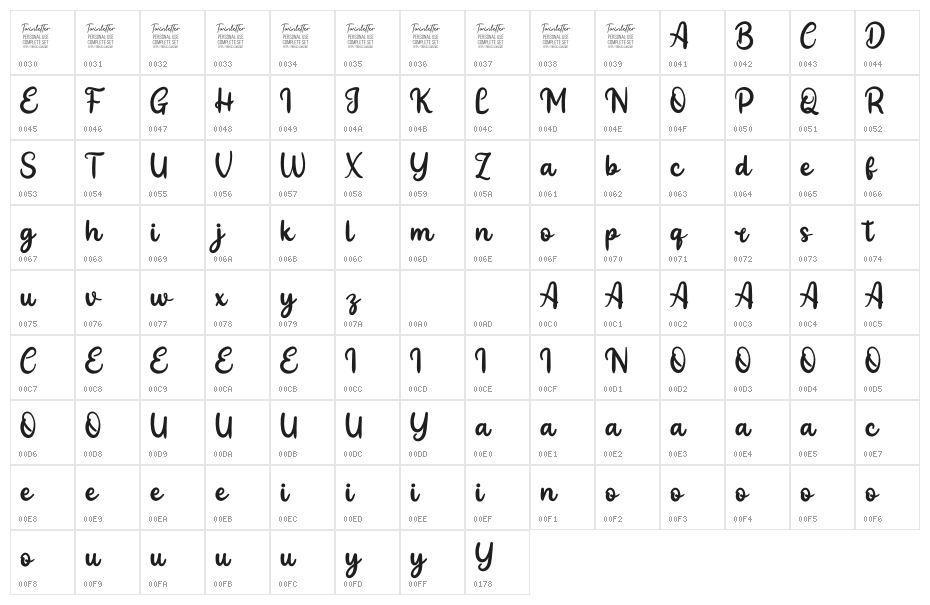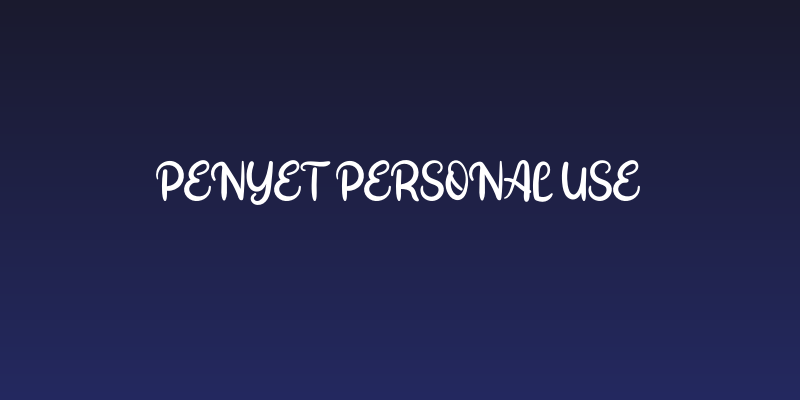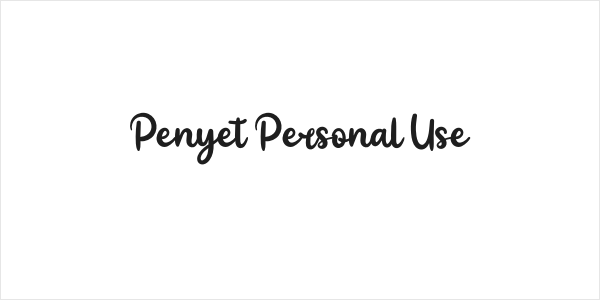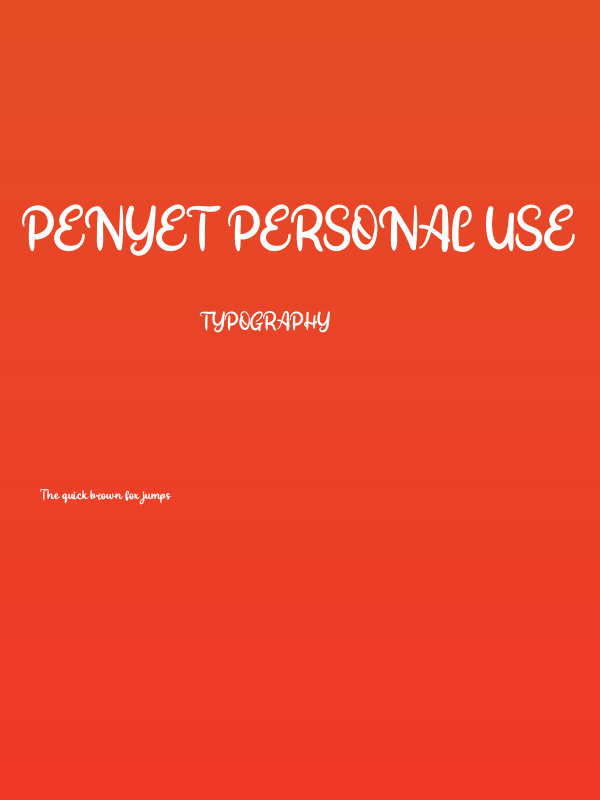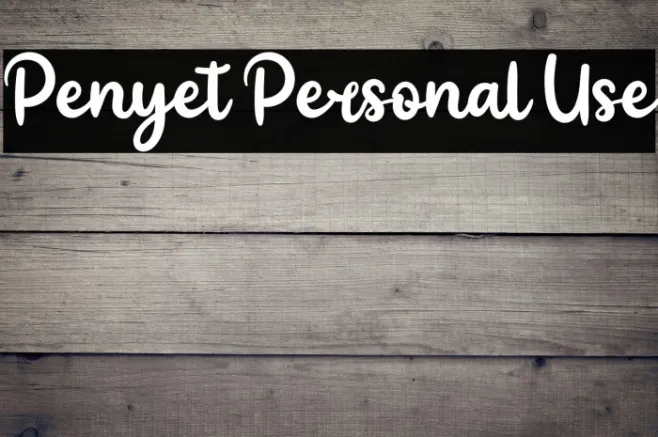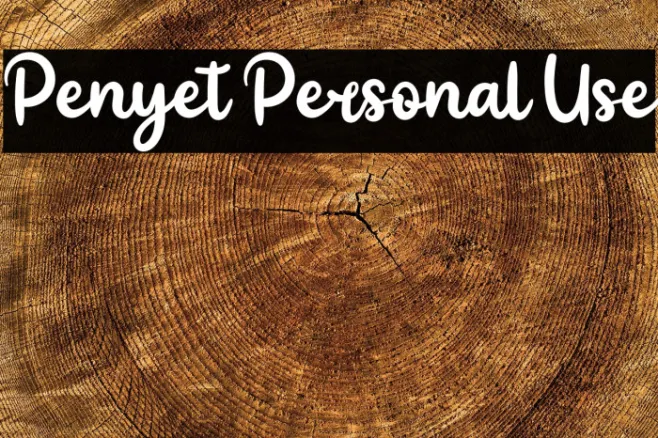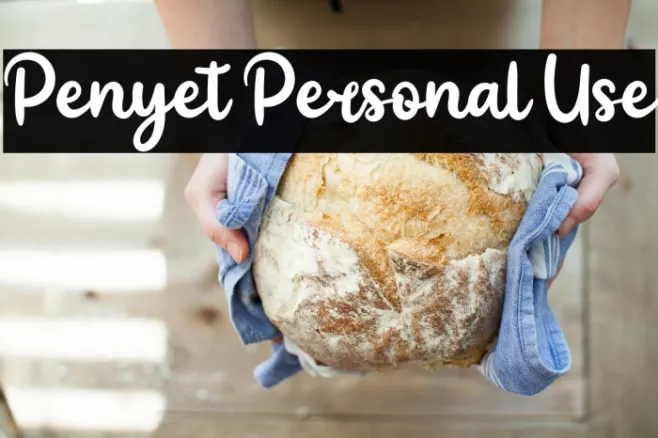
Penyet Personal Use Font
Penyet Personal Use Description
This font features a playful and flowing script style, characterized by its smooth, rounded edges and consistent stroke width. The uppercase letters are bold and slightly slanted, giving a sense of movement and elegance. The lowercase letters maintain a cohesive style, with some letters featuring unique loops and curves that add to the font's charm. The numerals are clear and legible, maintaining the same playful style as the letters. Special characters are included, matching the overall aesthetic. This font is ideal for projects that require a personal and friendly touch.
| Proposed Projects | Ideal for invitations, greeting cards, logos, and branding materials that require a personal and friendly touch. |